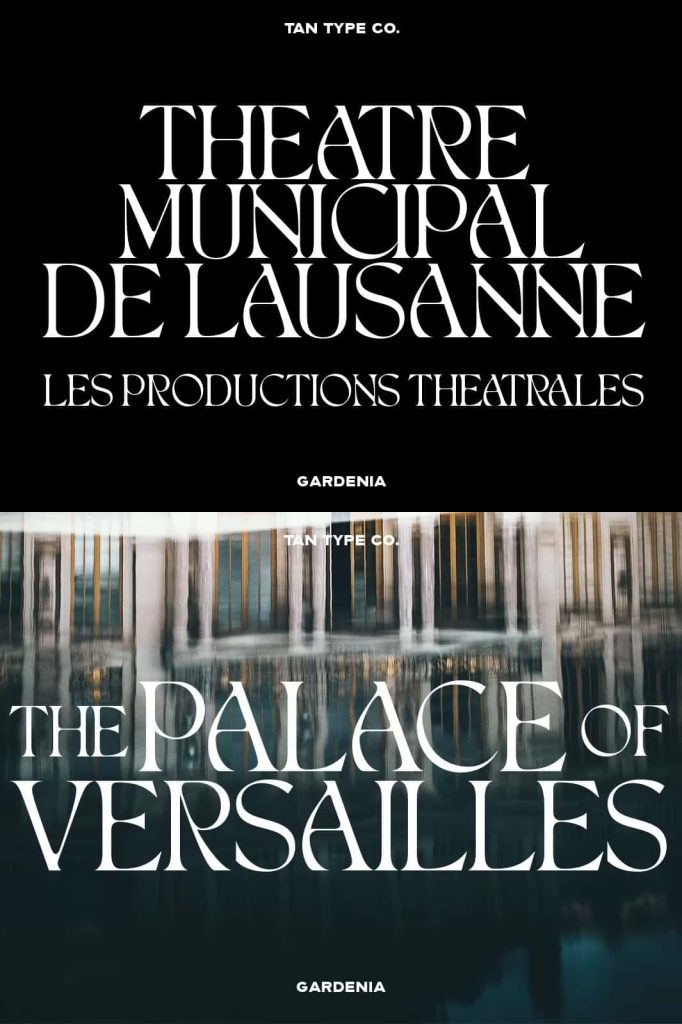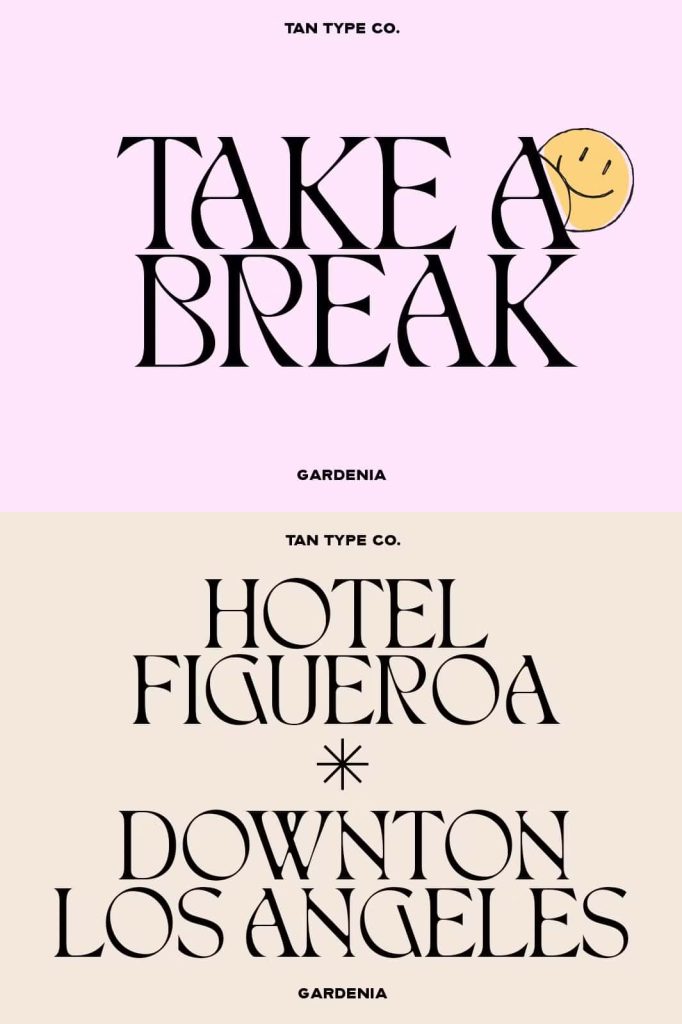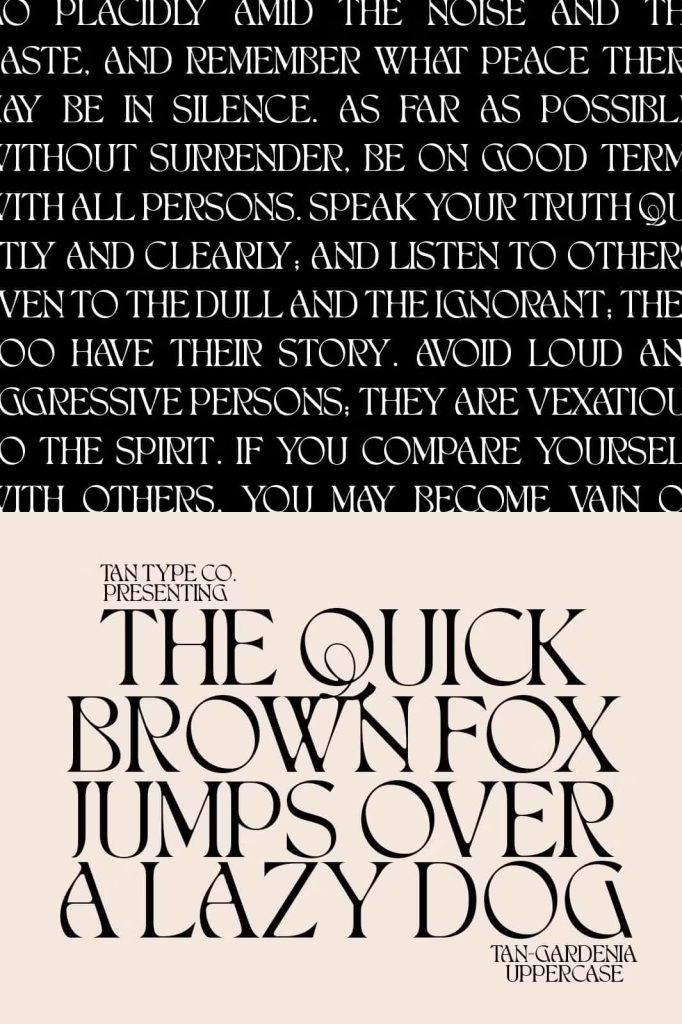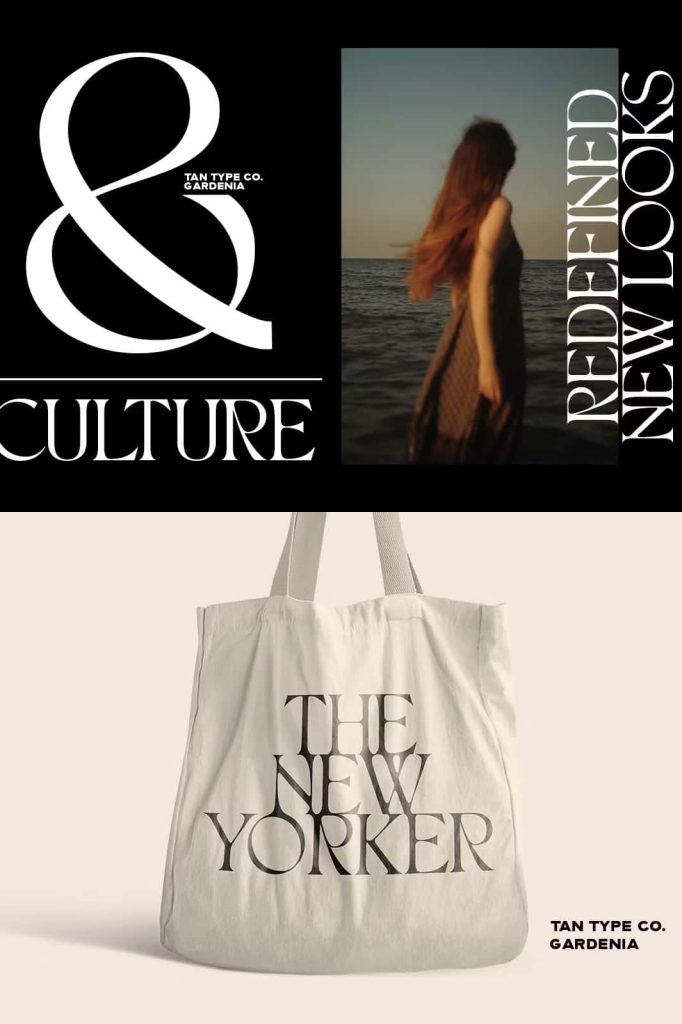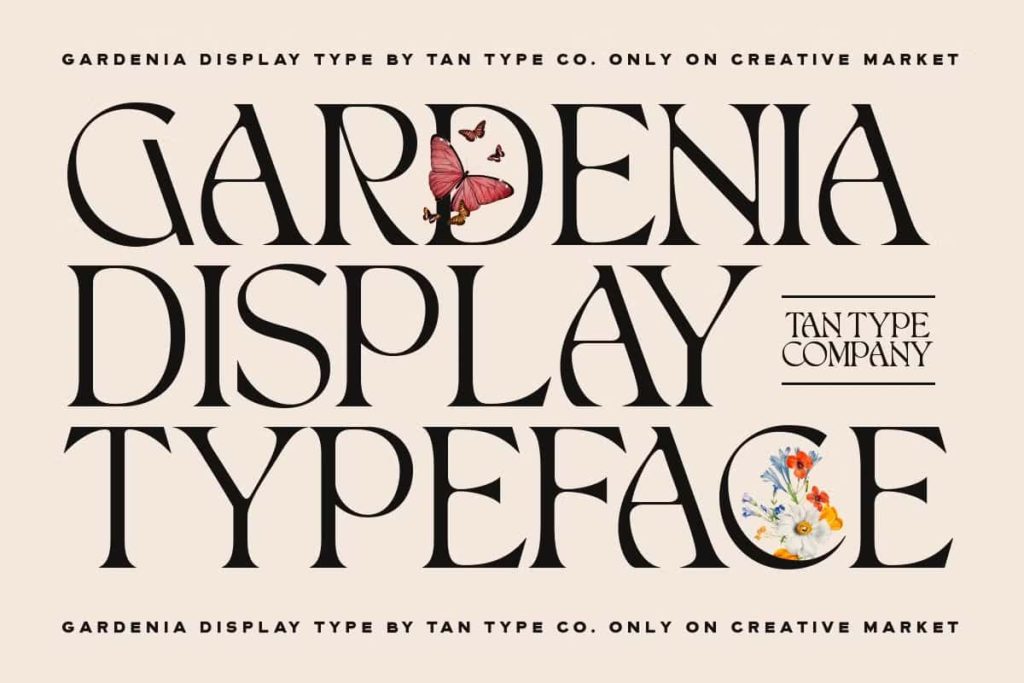
TAN – GARDENIA
TAN-GARDENIA Display Serif Typeface
A Classic Serif Typeface with a Contemporary Twist
TAN-GARDENIA is a distinctive display typeface rooted in the tradition of classic serif typography while confidently embracing a modern sensibility. The design blends timeless serif structures with contemporary detailing, creating a typeface that feels familiar yet refreshingly new. This balance allows TAN-GARDENIA to honor typographic heritage while speaking clearly to modern audiences.
Each letterform is carefully shaped to reflect elegance, clarity, and character. The classic serif foundation provides stability and sophistication, while the contemporary twist introduces subtle playfulness and visual interest. This combination makes TAN-GARDENIA a compelling choice for designers who want to create strong, expressive typography without losing refinement.
Elegant Shapes with a Fun and Expressive Personality
Although TAN-GARDENIA maintains graceful and elegant letter shapes, it also brings a sense of fun and creativity into every composition. The typeface avoids stiffness by incorporating modern proportions and distinctive details that add personality to the text. This approach allows the font to feel lively and engaging while still remaining polished and professional.
The playful energy of TAN-GARDENIA makes it especially effective for designs that aim to capture attention and convey a unique brand voice. It delivers warmth and charm without sacrificing readability or structure. Designers can use it to create headlines and titles that feel confident, stylish, and memorable.
A Typeface That Balances Tradition and Modern Design
TAN-GARDENIA stands at the intersection of classic typography and modern design trends. Its serif construction provides a sense of credibility and heritage, while its contemporary elements keep it relevant in today’s visual landscape. This balance makes the typeface highly versatile and suitable for a wide range of creative applications.
Whether used in bold headlines or refined branding elements, TAN-GARDENIA adapts easily to different visual contexts. It pairs well with minimalist layouts, rich imagery, and modern color palettes, giving designers the flexibility to explore various creative directions.
Perfect for Branding, Logos, and Creative Design
TAN-GARDENIA excels in branding projects where identity and personality matter most. Its elegant yet playful appearance helps brands communicate confidence, creativity, and sophistication. When used in logo design, the typeface creates a strong visual presence that remains recognizable and impactful across different platforms.
In addition to logos, TAN-GARDENIA works beautifully in packaging, editorial layouts, posters, and promotional materials. Its display nature makes it ideal for titles, headlines, and short blocks of text that require visual emphasis. The font enhances storytelling by adding character and style to every word.
A Versatile Display Typeface for Modern Designers
TAN-GARDENIA was designed with versatility in mind, giving designers a reliable display serif that performs well in both digital and print formats. Its clear structure ensures readability at various sizes, while its decorative qualities shine in larger display settings. This makes it suitable for websites, social media graphics, magazines, and printed branding assets.
By choosing TAN-GARDENIA, designers gain access to a display serif typeface that merges classic elegance with contemporary flair. It supports creative expression while maintaining professional quality, making it an essential addition to any modern design toolkit. TAN-GARDENIA empowers designers to create branding and visual content that feels timeless, expressive, and confidently modern.